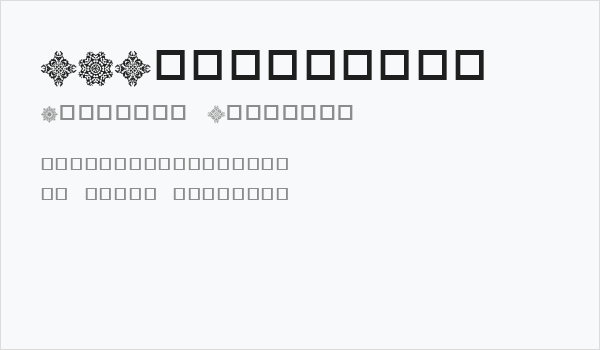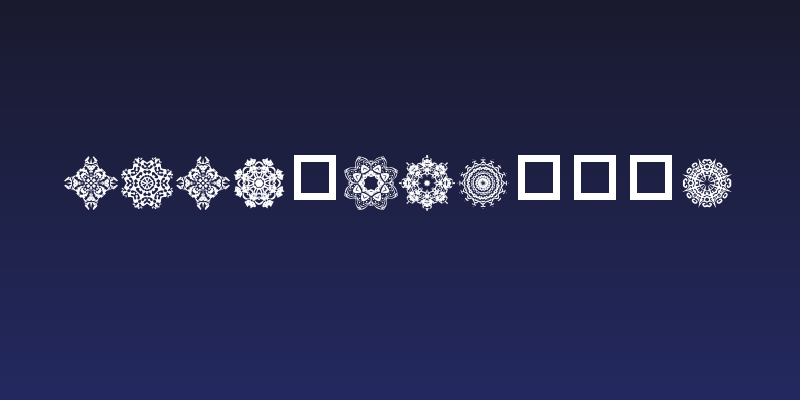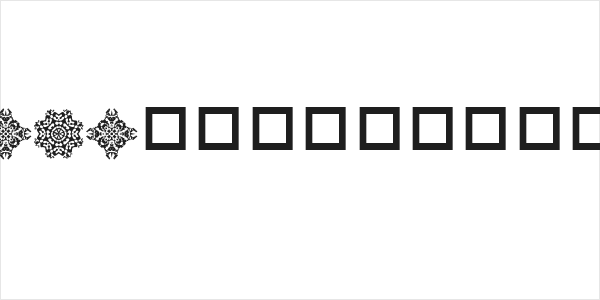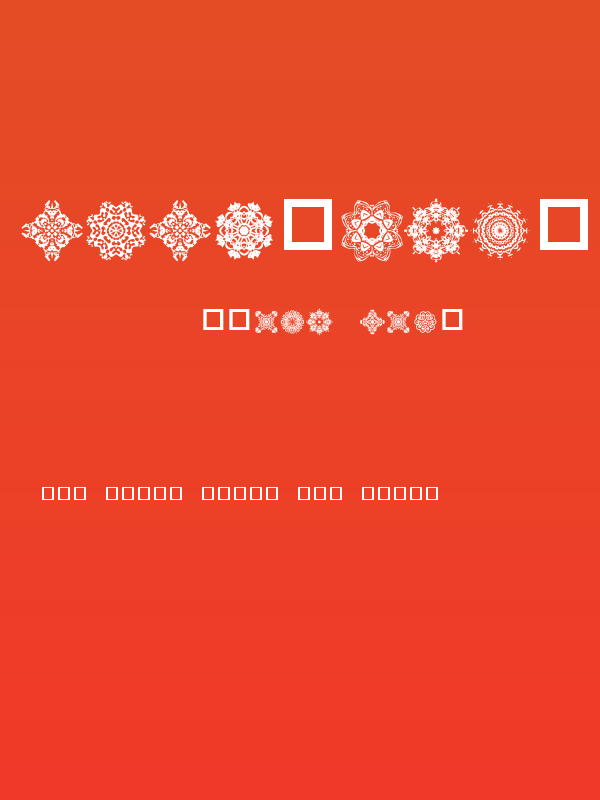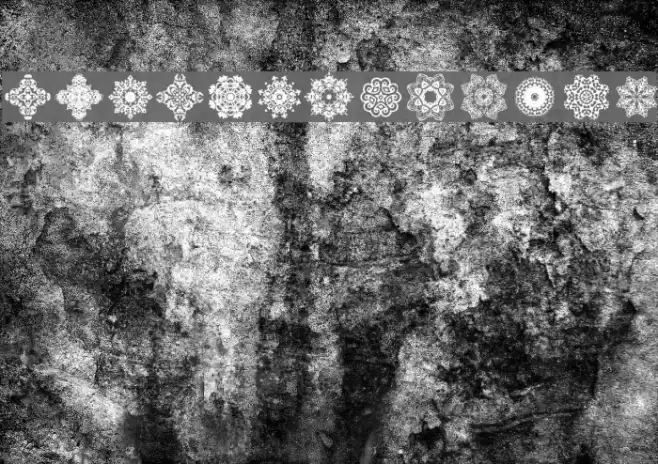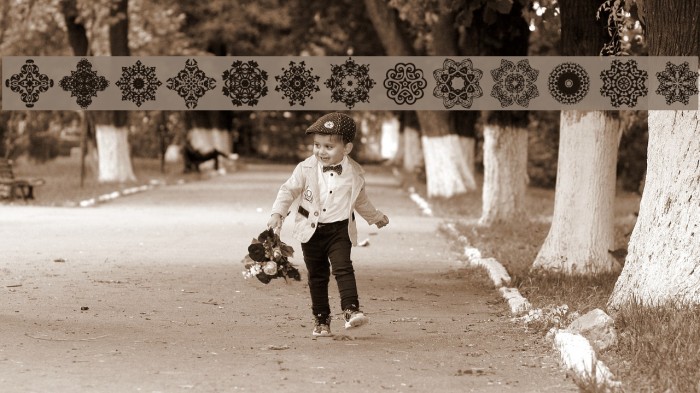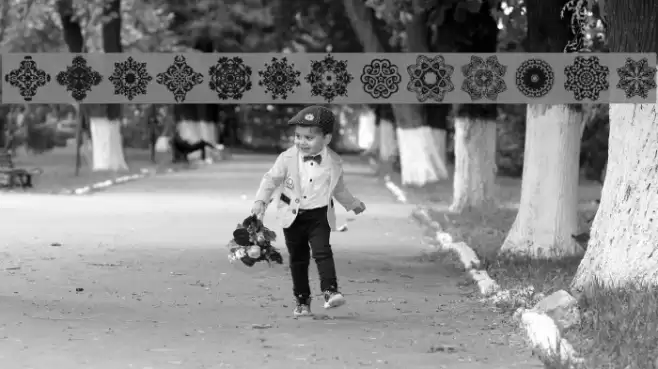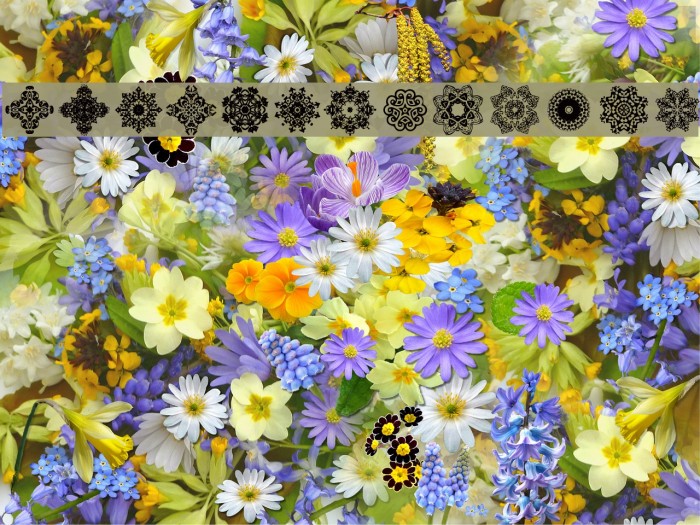
DLDesignsTwo Font
DLDesignsTwo Description
A decorative dingbat font featuring intricate, symmetrical mandala and ornamental motifs, each glyph presenting a unique, detailed design suitable for embellishments.
| Overall Style | Decorative, Ornamental |
| Use Case | Decorative elements, embellishments, graphic design accents |
| Proposed Projects | Invitations, decorative borders, scrapbooking, logo accents, packaging, digital art. |